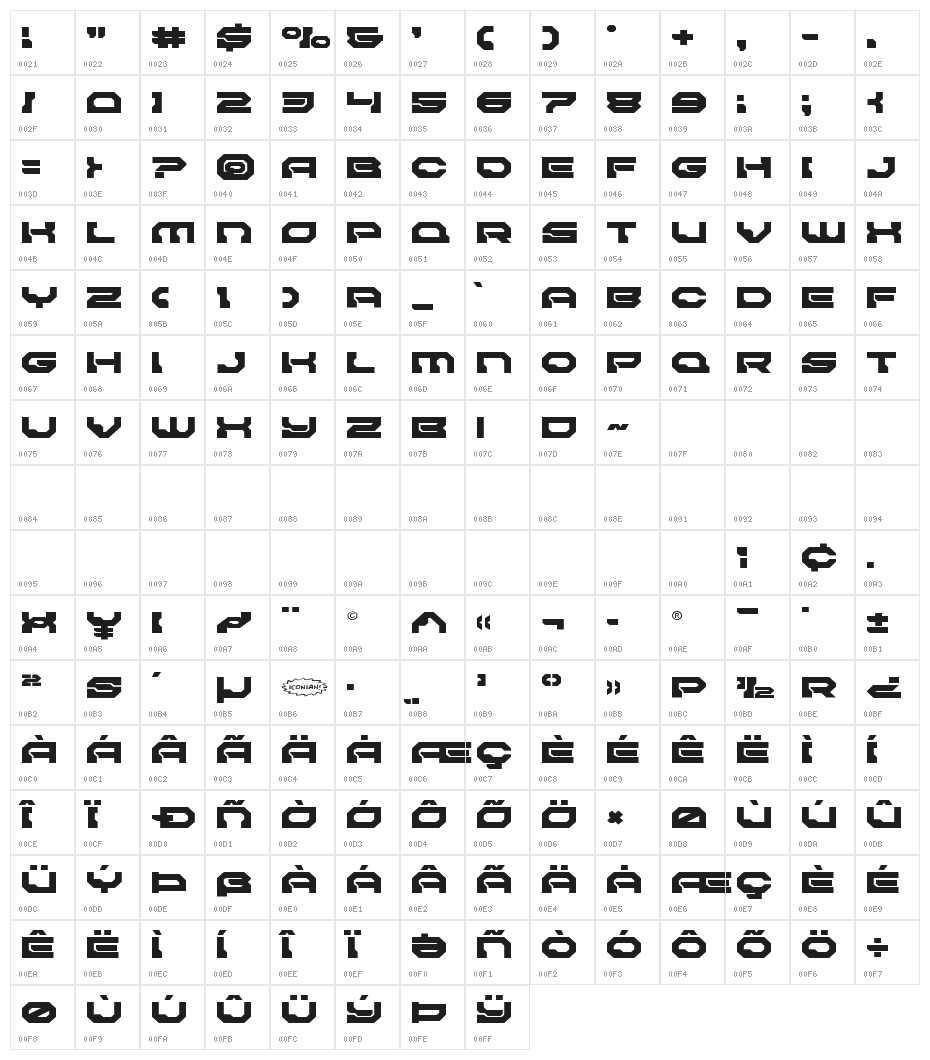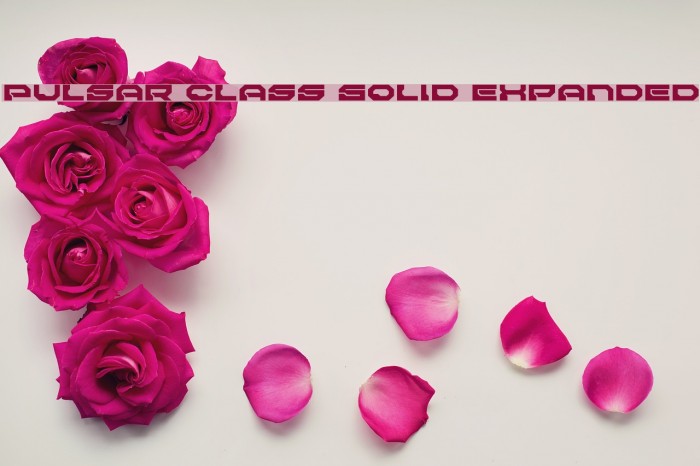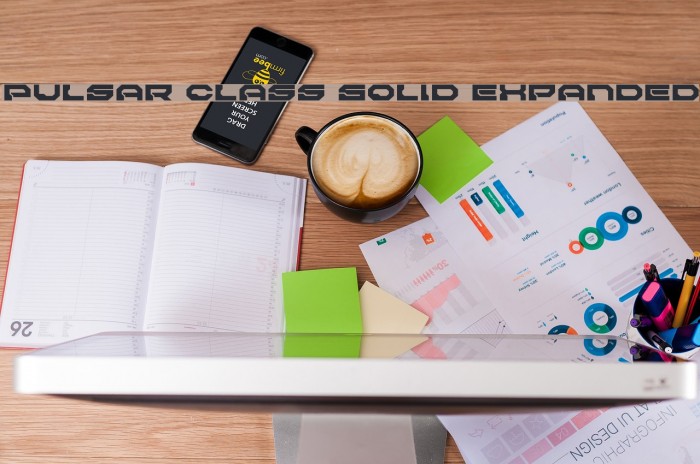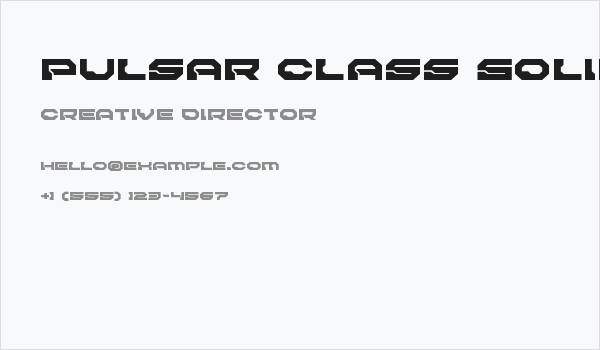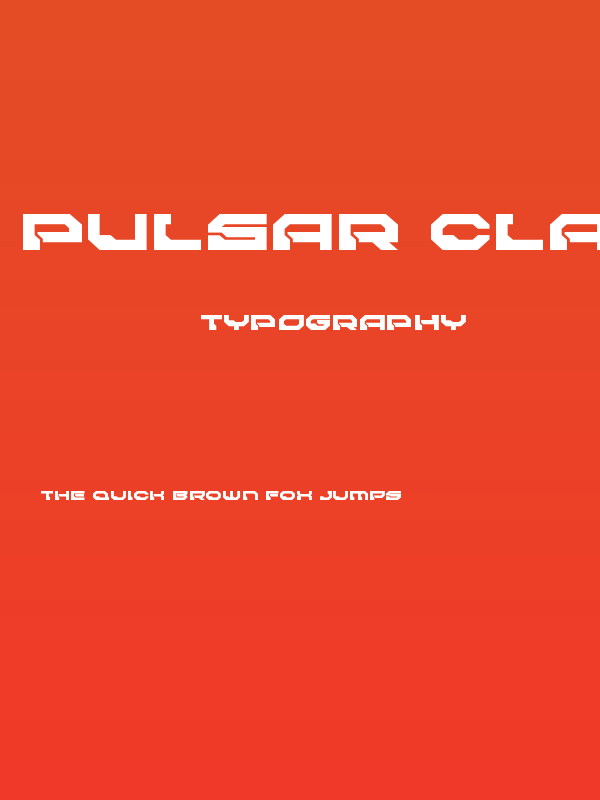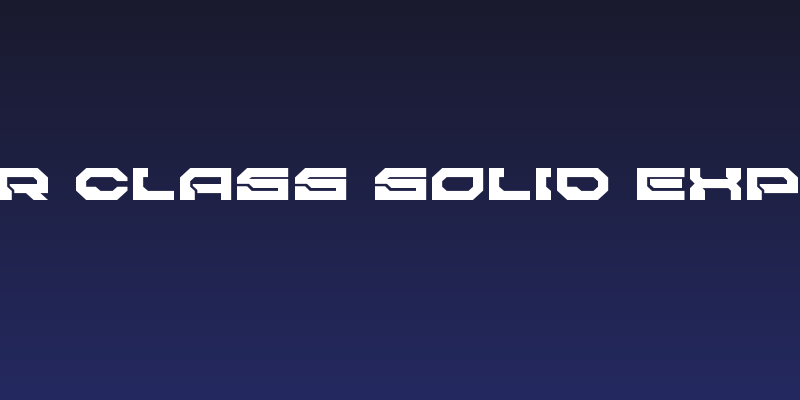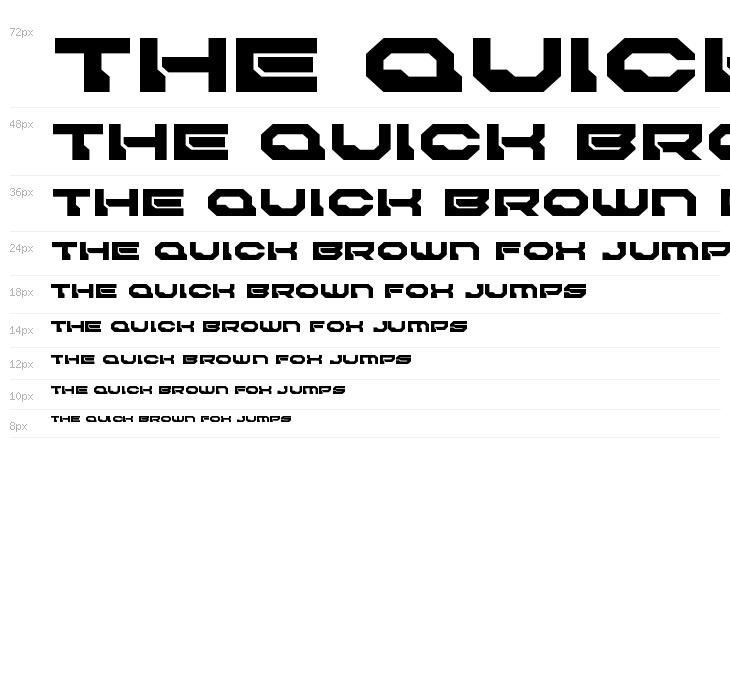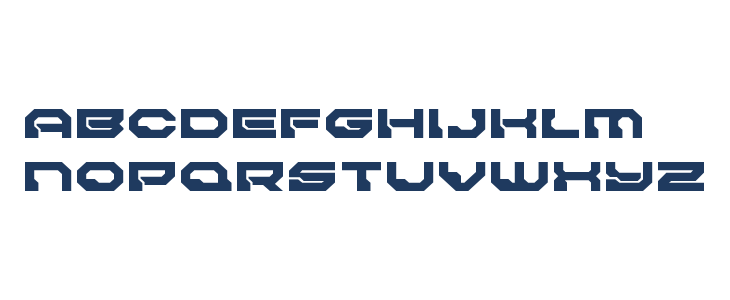
Pulsar Class Solid Expanded Font
Pulsar Class Solid Expanded Description
This font features a futuristic and bold design with geometric shapes and sharp angles. The characters are solid and expanded, giving them a strong presence. The uppercase and lowercase letters maintain a consistent style, with a unique blend of straight lines and angular cuts. The numbers and special characters follow the same design principles, ensuring uniformity across all glyphs. This font is ideal for projects that require a modern and edgy aesthetic, such as technology branding, sci-fi themes, or video game titles.
| Proposed Projects | Ideal for technology branding, sci-fi themes, video game titles, and modern posters. |